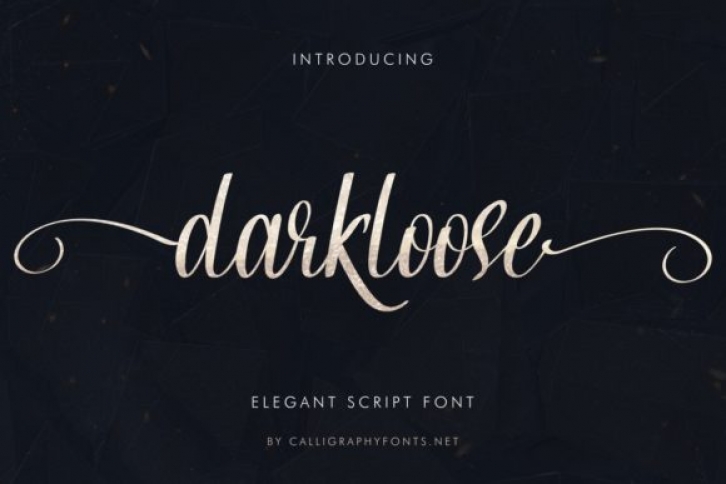
Darkloose is an elegant, luxury, glamorous, modern and sophisticated brush pen. Fall in love with its incredibly versatile style and use it to create spectacular designs! This font is PUA encoded which means you can access all of the glyphs and swashes with ease!